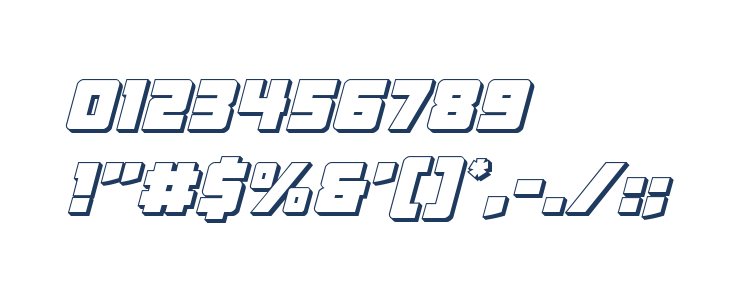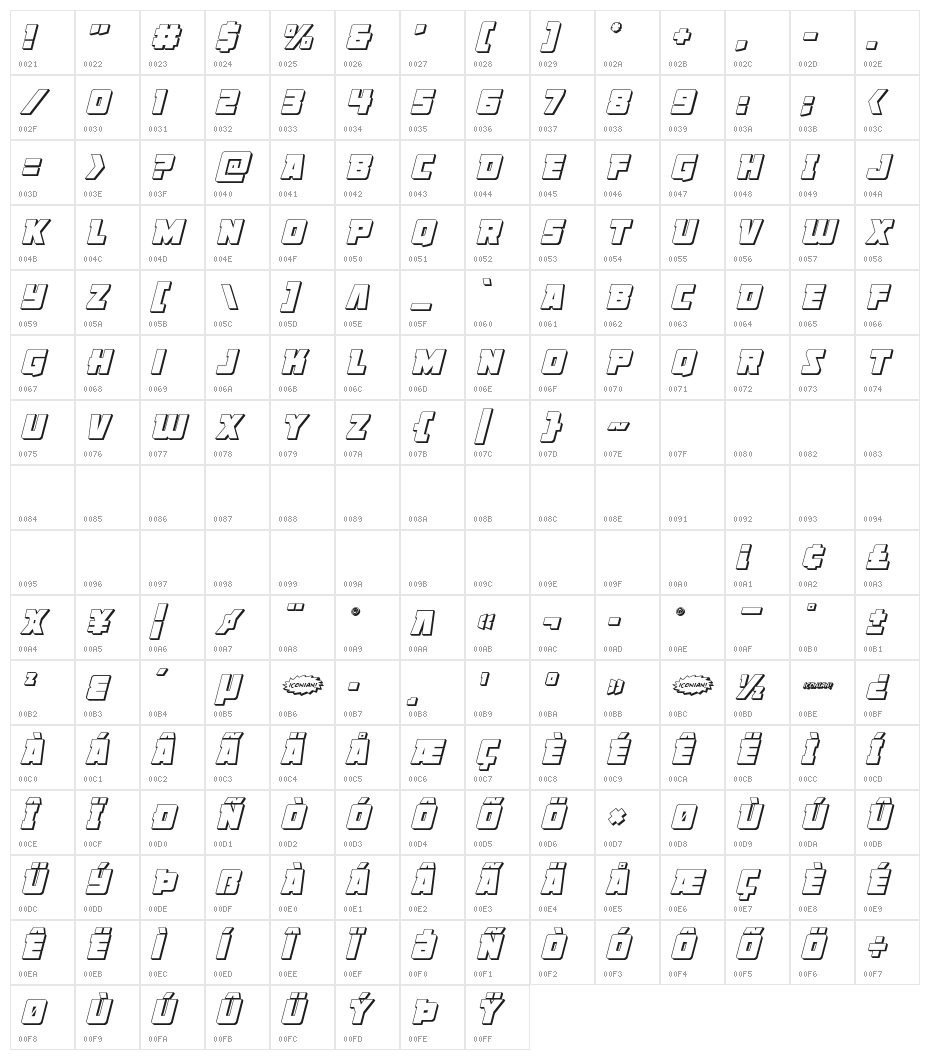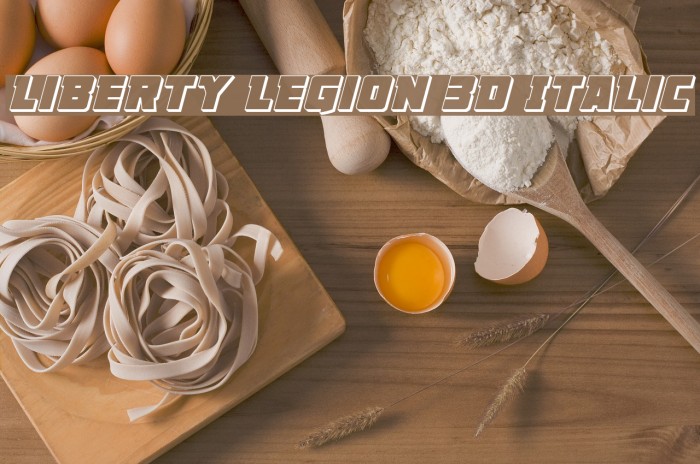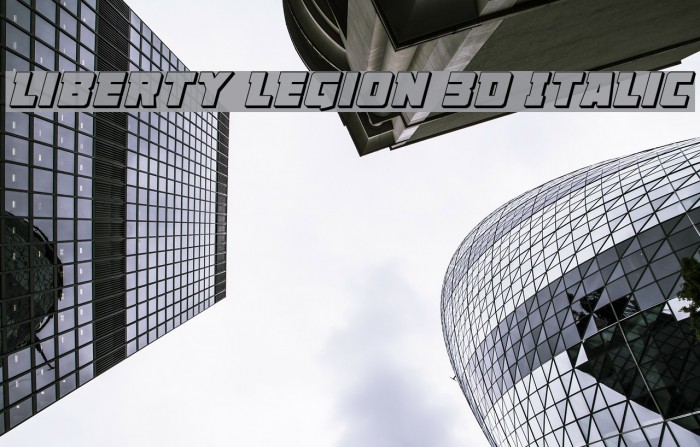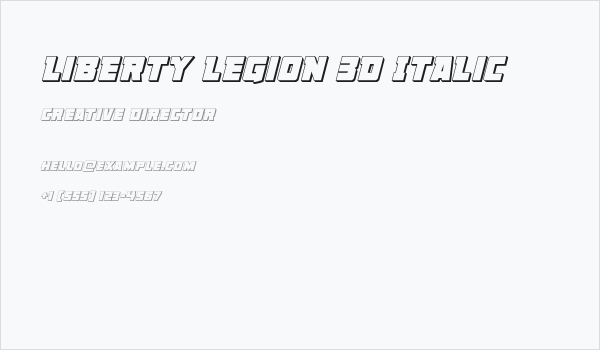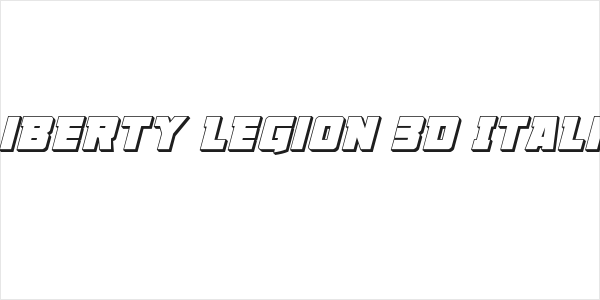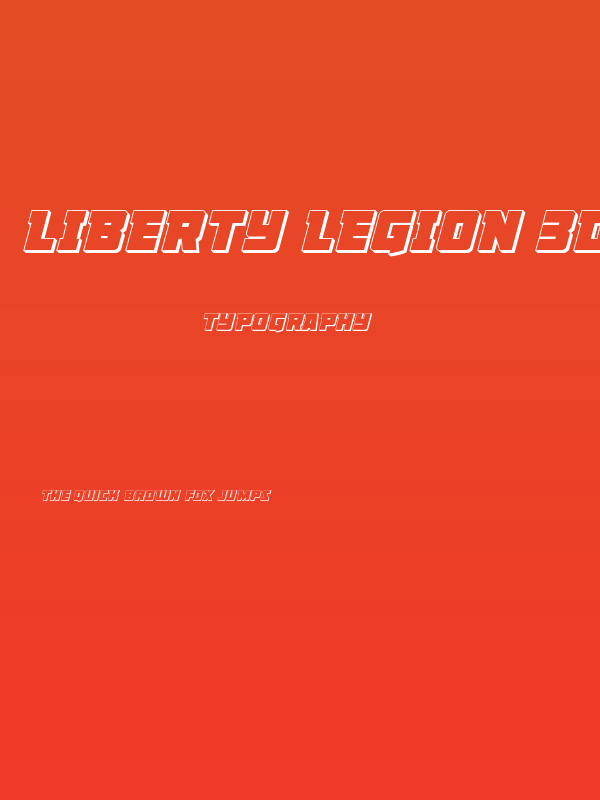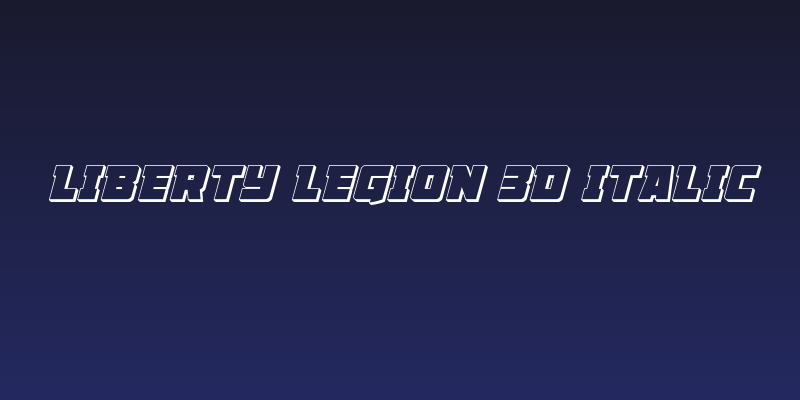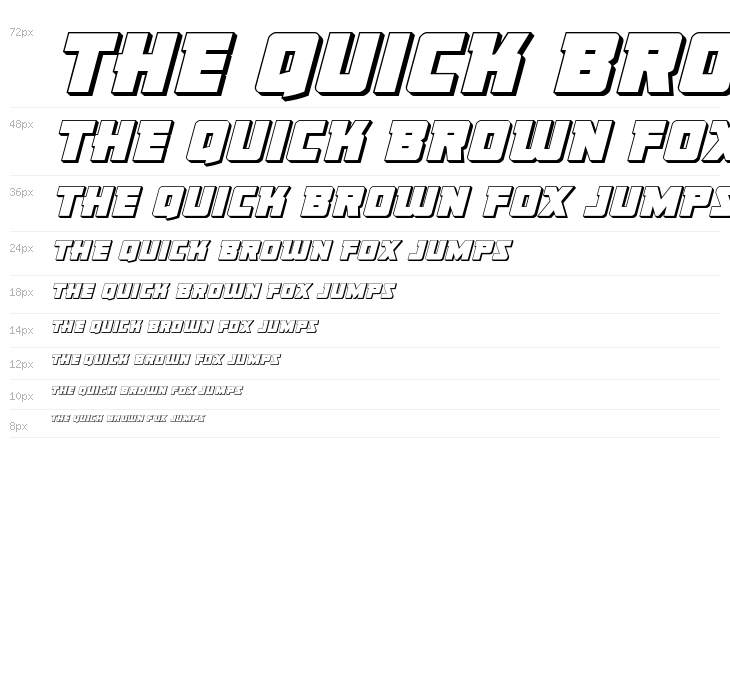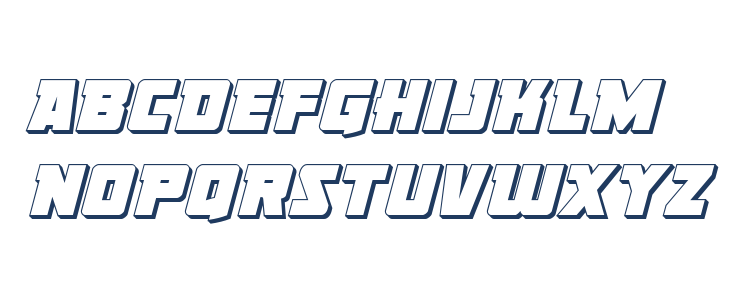
Liberty Legion 3D Italic Font
Liberty Legion 3D Italic Description
This font features a bold, three-dimensional appearance with a strong italic slant, giving it a dynamic and impactful look. The characters are outlined, enhancing the 3D effect and making each letter stand out prominently. The style is reminiscent of retro or vintage designs, often seen in comic books or graphic novels. The uppercase and lowercase letters maintain a consistent style, with numbers and special characters following the same design principles. The font's boldness and unique style make it suitable for attention-grabbing headlines or titles.
| Overall Style | Retro, Decorative |
| Proposed Projects | Ideal for comic book titles, retro-themed posters, video game graphics, and eye-catching advertisements. |